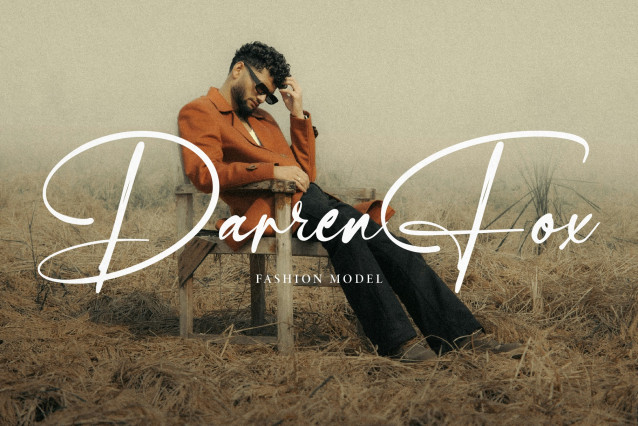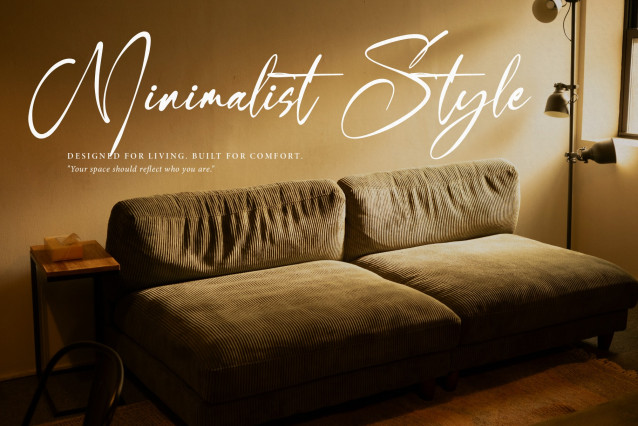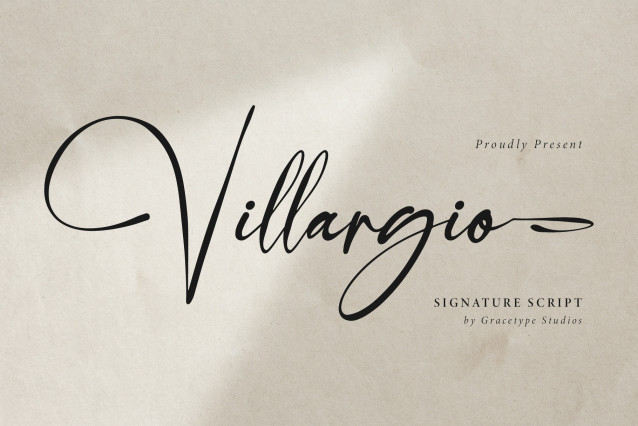
Villargio Signature Script Font
Villargio | Signature Script, from Gracetypestudio, suitable for any projects such as: logos, branding projects, homeware designs, product packaging, mugs, quotes, posters, shopping bags, t-shirts, book covers, name card, invitation cards, greeting cards, label, photography, watermark, special events, and all your other lovely projects that need a Script taste.
• Standard glyphs
• Alternate and Ligature